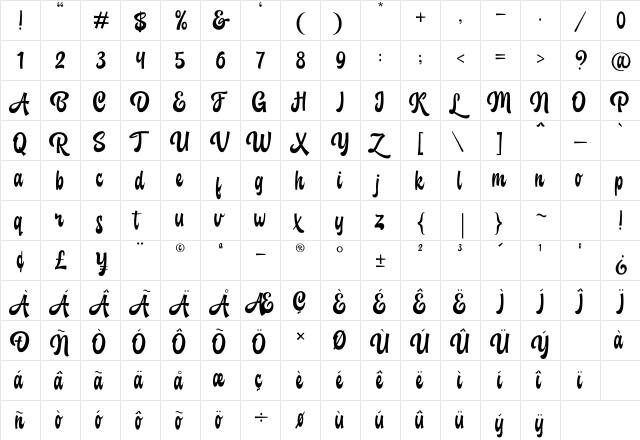
Backstranger Regular
Design Context for Backstranger Typeface
Backstranger is a composed and adaptable typeface that performs quietly and consistently across a wide range of design contexts.